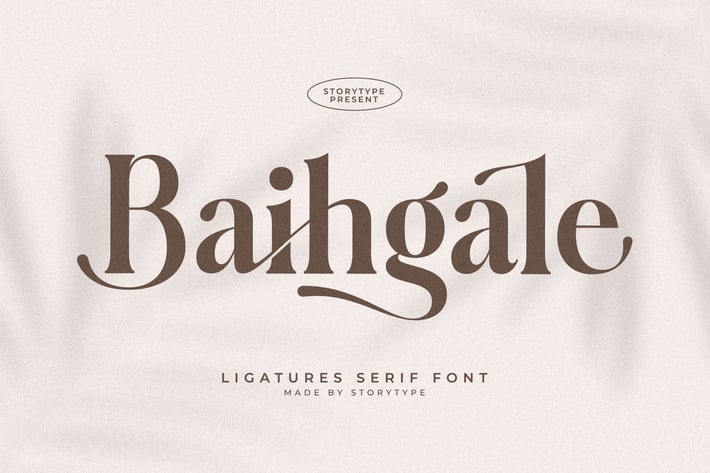
Baihgale Ligature Serif Font
Baighale Ligature Serif Font is a modern and elegant serif font that offers a perfect blend of sophistication and style. With its unique ligatures and charming details, this font is ideal for creating high-end designs that require a touch of class. Whether used for branding, invitations, social media posts, or advertisements, Baighale Ligature brings a luxurious feel to any project. Its beautifully crafted letterforms ensure your designs stand out, making it the perfect choice for various creative needs.
+ Elegant serif font with unique ligatures
+ Business Cards
+ Brand Identity
+ Elegant Logos
+ Flyer Design
+ Wedding Invitations
+ Luxury Branding
Add a touch of elegance and luxury to your designs with Baighale Ligature Serif Font, the perfect choice for high-end, sophisticated projects.